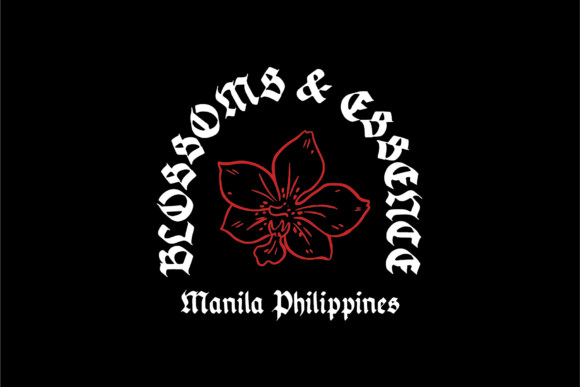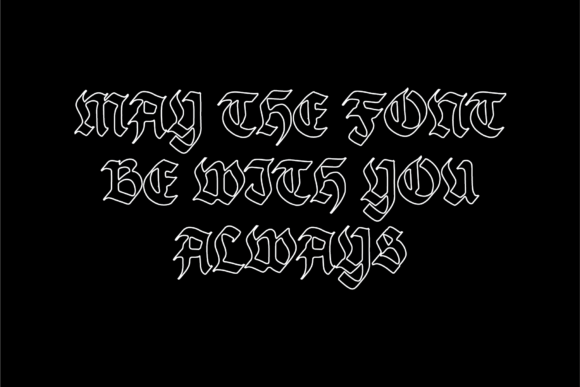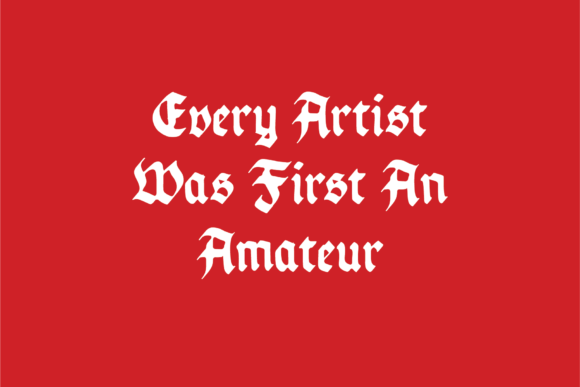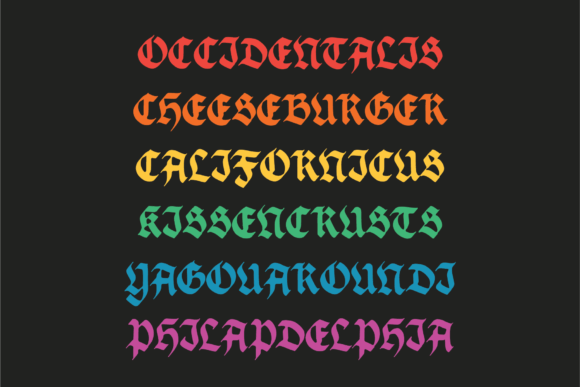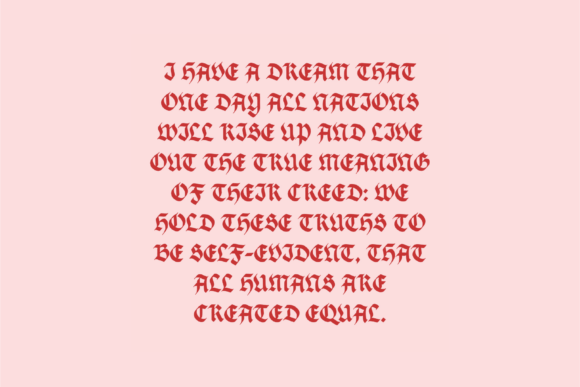
Introduction to Inkspell Font
You’ve spent hours pouring over design ideas, finally finding the perfect concept for your next project. But, as you begin to bring it to life, something’s missing – that special touch that sets your work apart from the rest. That’s where the Inkspell Font comes in – a meticulously hand-lettered blackletter typeface designed to add an authentic Gothic aesthetic to your creative projects.
Imagine having a design resource that not only elevates your work but also offers a unique, hand-drawn character that’s perfect for vintage-inspired designs or modern calligraphy. The Inkspell Font is a high-quality, free download that’s ideal for a wide range of applications, from branding and logo design to product packaging and wedding invitations. With its distinctive style working beautifully for both digital and print mediums, this font is a valuable asset for designers looking to add a personal, artisanal touch to their work.
Key Features of Inkspell Font
- Unique, high-quality design with a transparent background, perfect for creative projects and backgrounds.
- Comes in a single weight, ideal for use in logos, branding, and typography-based design elements.
- Perfect for designers, artists, and creatives working on high-end projects, including book covers, album artwork, and more.
Honest Review: Inkspell Font
I recently had the chance to work with the Inkspell Font for a creative project and I must say it’s been a game-changer. ✨ The font’s unique blend of elegance and whimsy makes it perfect for any design project that requires a touch of sophistication.
One of the things I appreciate most about the Inkspell Font is its transparent background, which allows for seamless integration with any design. This makes it an excellent resource for designers looking to add some visual interest to their work without overpowering the other elements.
Here are some of the things I love about the Inkspell Font:
- ✨ High-quality design that’s perfect for print or digital projects
- ✨ Excellent for use in creative projects where a unique font is required
However, I did encounter a few limitations while working with the Inkspell Font:
- ⚠️ Some users may find the font to be a bit too ornate for certain projects
- ⚠️ The font’s transparency can sometimes make it difficult to read on certain backgrounds
Overall, I’m really impressed with the Inkspell Font and would highly recommend it to any designer looking for a high-quality, free design resource.
Inkspell Font
The Inkspell Font is a high-quality, free download design resource ideal for creative projects that require a unique touch. With its transparent background, this font is versatile and can be used across various platforms.
For optimal results, use the Inkspell Font in conjunction with a high-quality image or design element. Experiment with different font sizes and styles to create a visually appealing effect.
The Inkspell Font is commonly used in creative projects such as invitations, posters, and social media graphics. Its unique design makes it perfect for adding a touch of elegance and sophistication to any design.